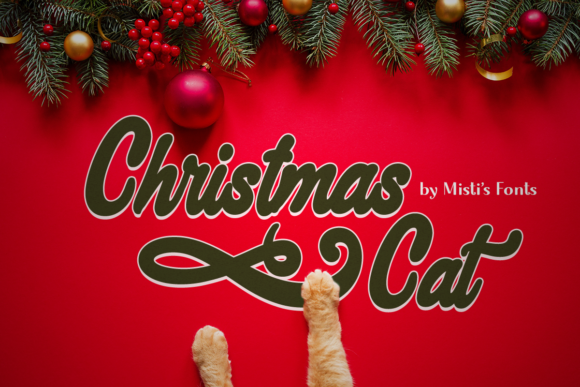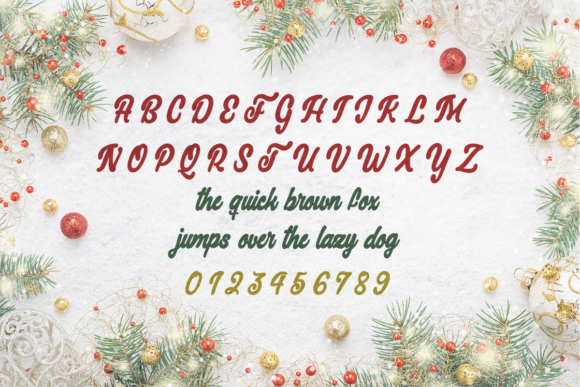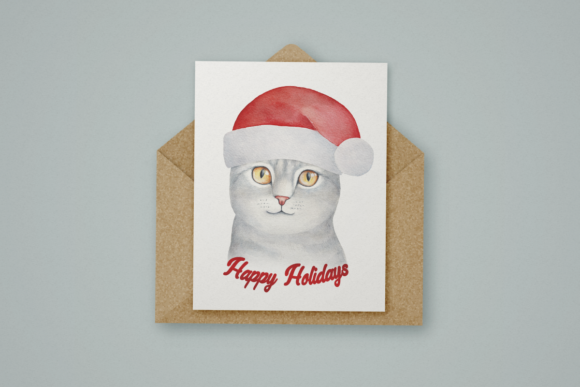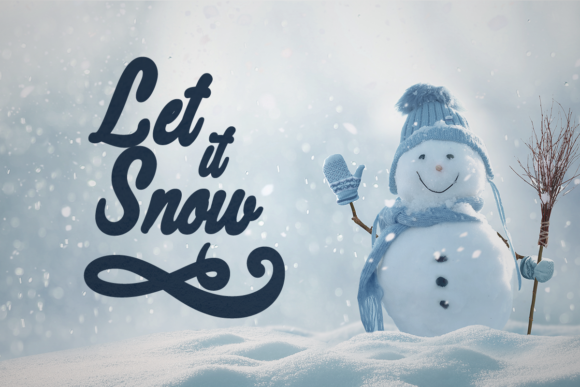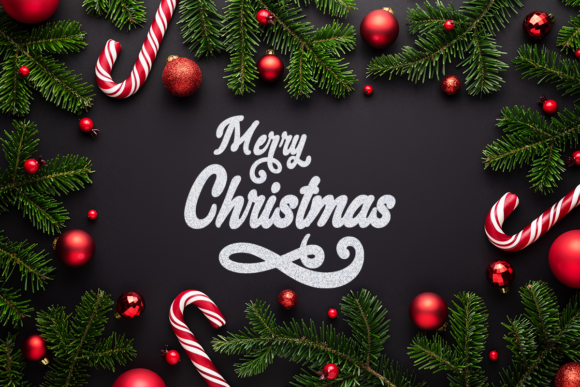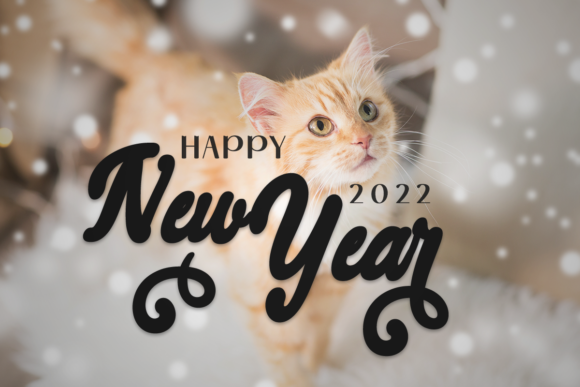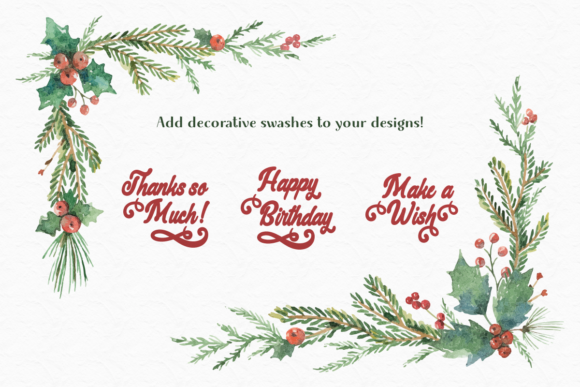
Deck the Halls with the Perfect Font
As I sat at my desk, surrounded by twinkling lights and festive decorations, I knew I needed the perfect font to capture the magic of the season. That’s when I stumbled upon the adorable Christmas Cat Font – a delightful script font that embodies the spirit of Christmas. With its playful curves and whimsical flair, this font is perfect for adding a touch of holiday cheer to your festive crafts.
The Christmas Cat Font is a treasure trove of creative possibilities, from designing Christmas cards and New Year’s invites to crafting quotes and sayings that spread joy and love. Its wide range of swashes and bonus SVG files make it an invaluable asset for designers looking to add a personal touch to their projects. Whether you’re a seasoned pro or a crafting newbie, this font is sure to bring a smile to your face and make your creations truly special.
Christmas Cat Font Key Features
- Unique Characteristics: The Christmas Cat Font features a playful and festive design, with intricate details and ornaments, making it perfect for holiday-themed designs and decorations.
Designer Review: Christmas Cat Font
Overall, I think the Christmas Cat Font is a cute and playful addition to any holiday design project. Here are some things that work well: ✨ The font is extremely festive and will add a fun touch to any design, especially those targeting families with children. The font includes a variety of characters and symbols, making it versatile for different design applications. Additionally, the font is available in a range of weights and styles, allowing designers to achieve the perfect balance of whimsy and sophistication.
However, there are some limitations to consider: ⚠️ The font may not be suitable for all design projects, particularly those that require a more serious or elegant tone. Additionally, some characters may not be as well-designed as others, which could lead to inconsistencies in the overall aesthetic. The font also appears to be limited to the holiday season, which may limit its use outside of December.
Here are some specific pros and cons:
- ✨ Playful and festive aesthetic
- ✨ Versatile and available in a range of weights and styles
- ✨ Includes a variety of characters and symbols
- ⚠️ May not be suitable for all design projects
- ⚠️ Some characters may not be as well-designed as others
- ⚠️ Limited to the holiday season
Christmas Cat Font: A Practical Application Guide
Tips for Getting the Most Out of the Christmas Cat Font
For the best results, use the Christmas Cat Font in conjunction with festive graphics and colors.
Experiment with different font sizes and styles to create a unique and eye-catching design.
The Christmas Cat Font is perfect for:
- Christmas cards and invitations
- Holiday social media posts
- Gift tags and wrapping paper
- Party decorations and signage